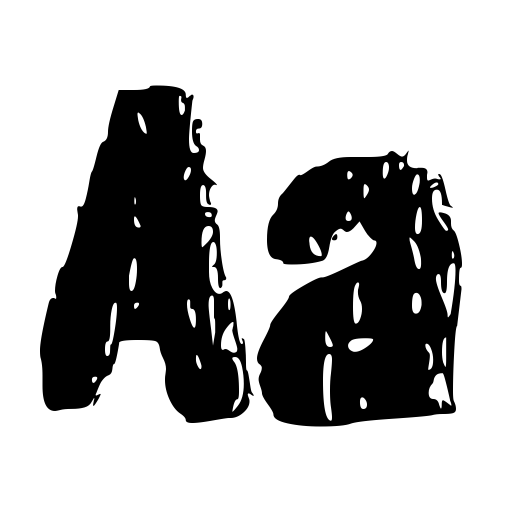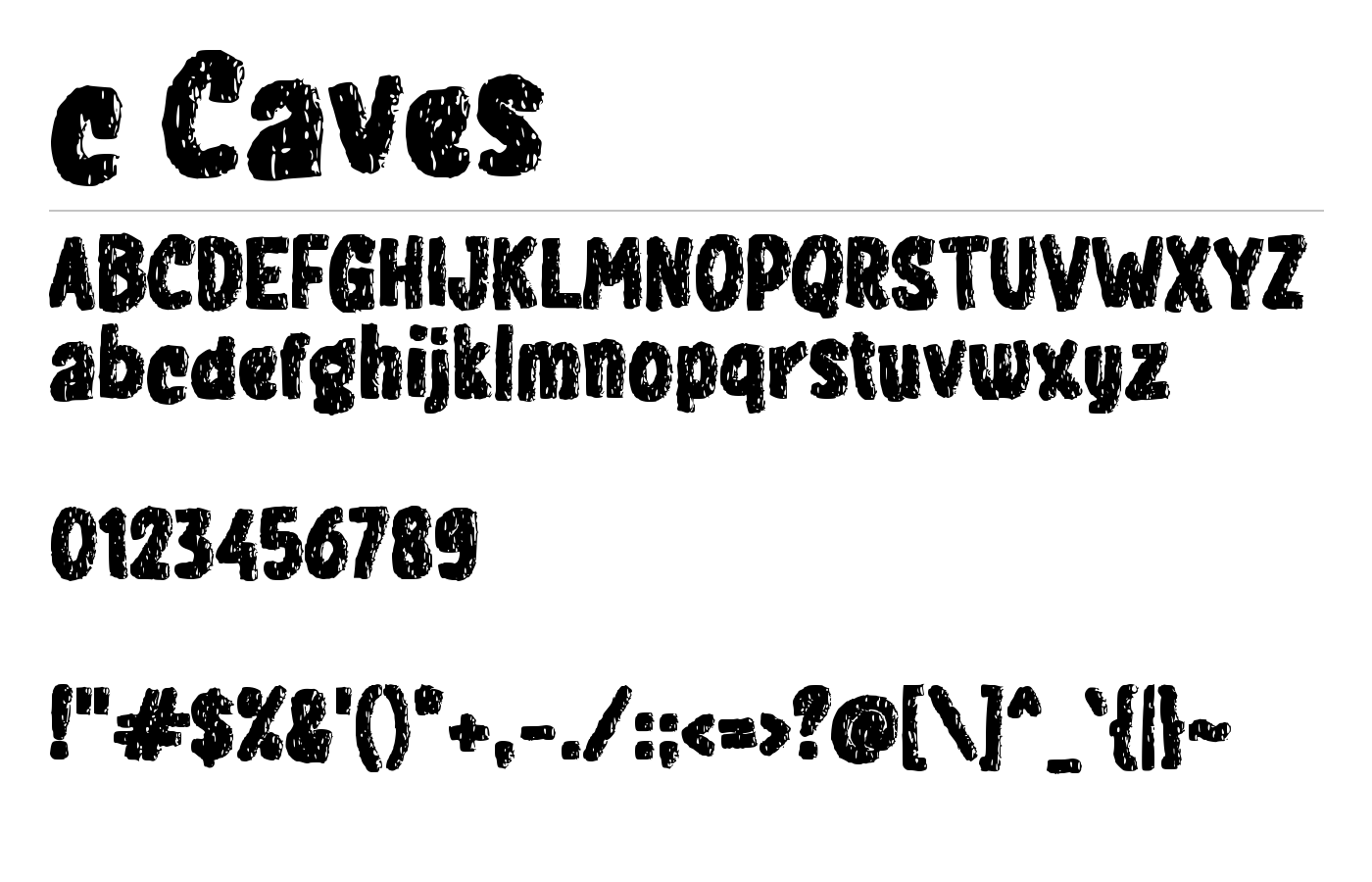
C Caves Font is a bold, textured sans serif with a rough, hand-drawn appearance that adds a playful, organic feel to any design. Its irregular, blocky letterforms with uneven edges create a strong, casual personality, making it ideal for creative projects, posters, and branding that seek a rugged or adventurous vibe. This font works well when you want to convey energy and uniqueness without sacrificing readability.
c Caves Font
About c Caves Font